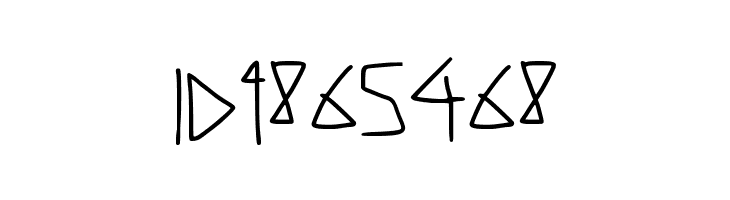
( Dysa is a Sephraxian Support font. This font can be both used for ornate logo design and whiteboard-inspired art, or also for giving your next hobby project something that makes your friends go mad and zany. )